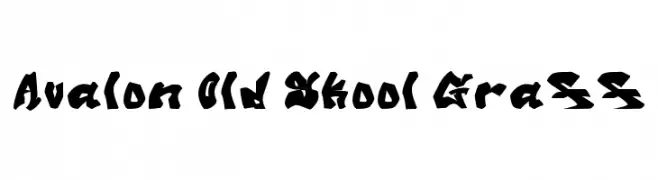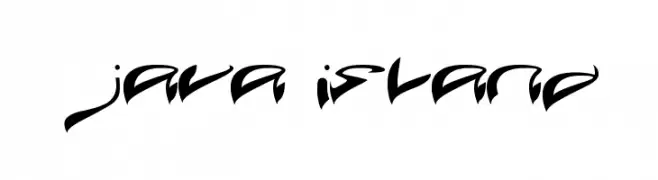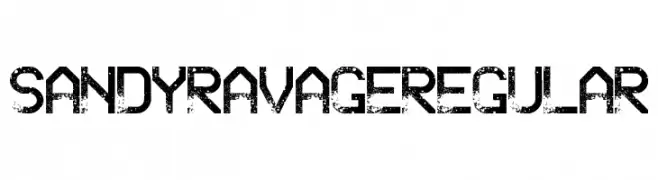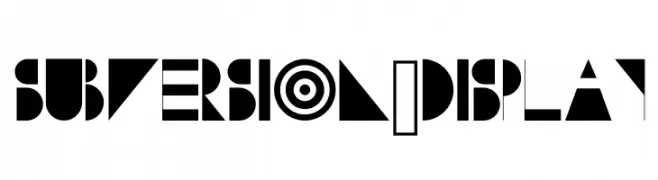
A playful, handwritten font with uneven strokes and a casual style.
A bold, geometric display font with high contrast and abstract shapes.
A bold, distressed font with a rugged, grunge style.
A bold, textured font with a mosaic-like design, perfect for creative projects.
A playful, hand-drawn font with tall, narrow letterforms and a whimsical style.
A playful, casual handwritten font with uneven strokes and organic flow.